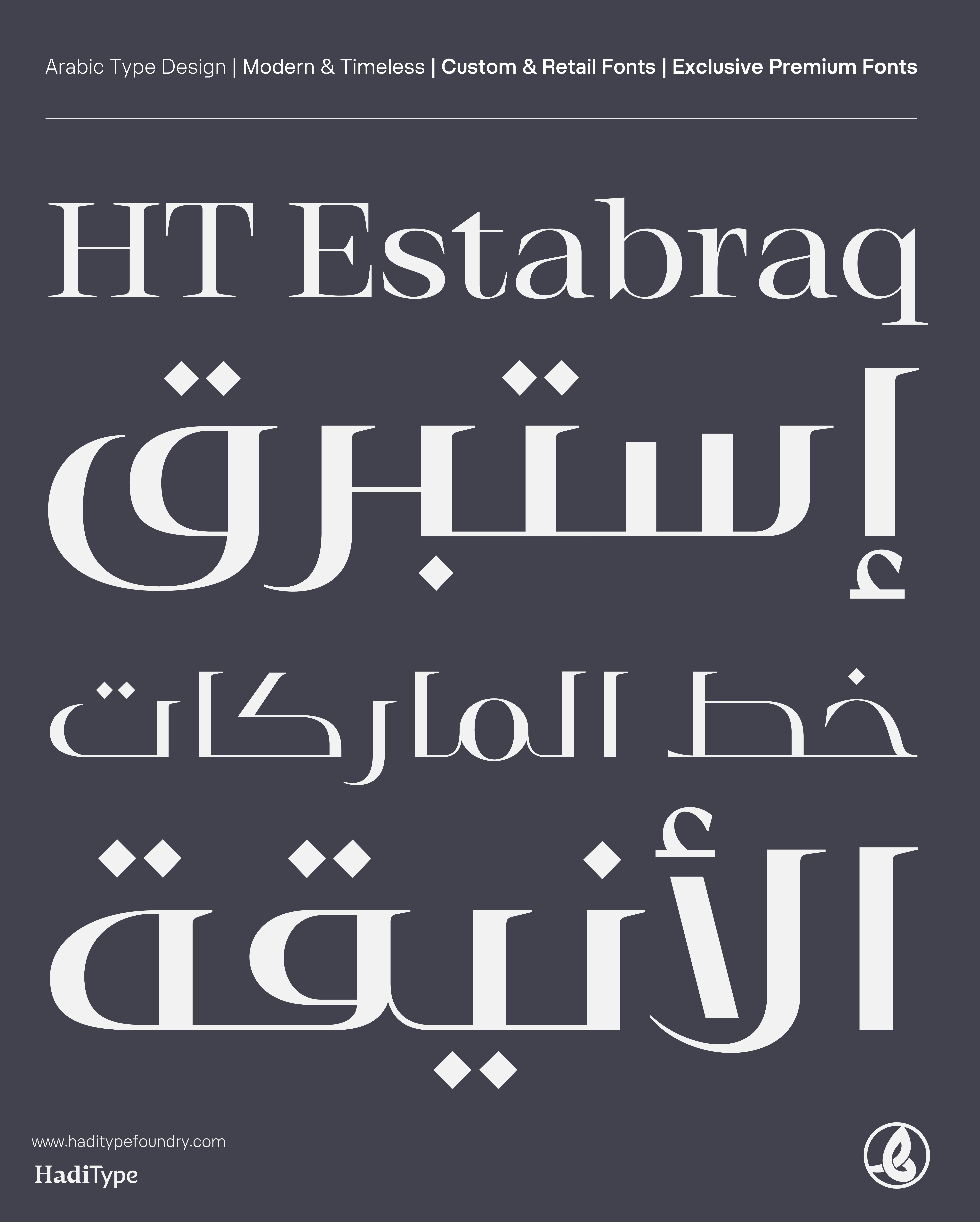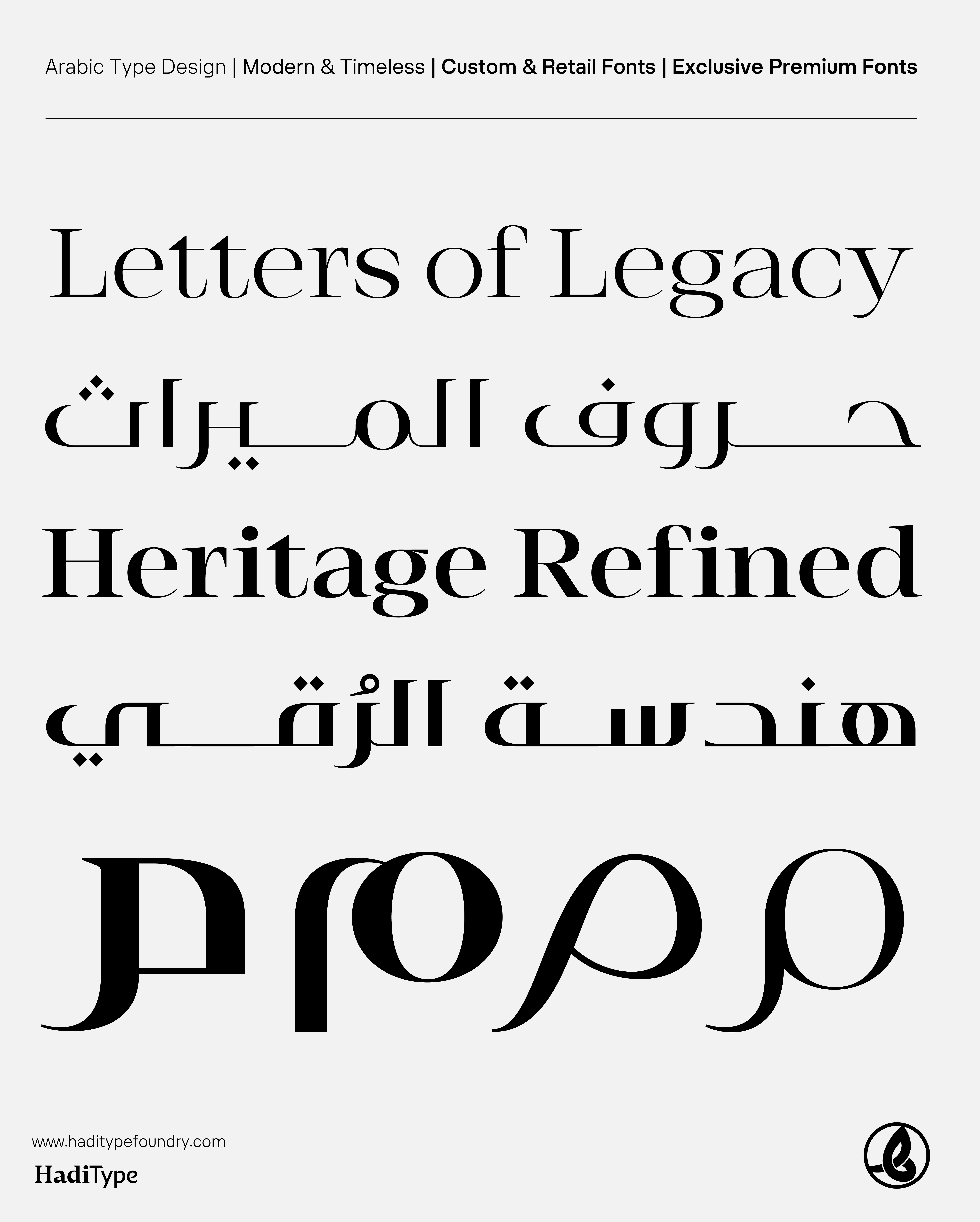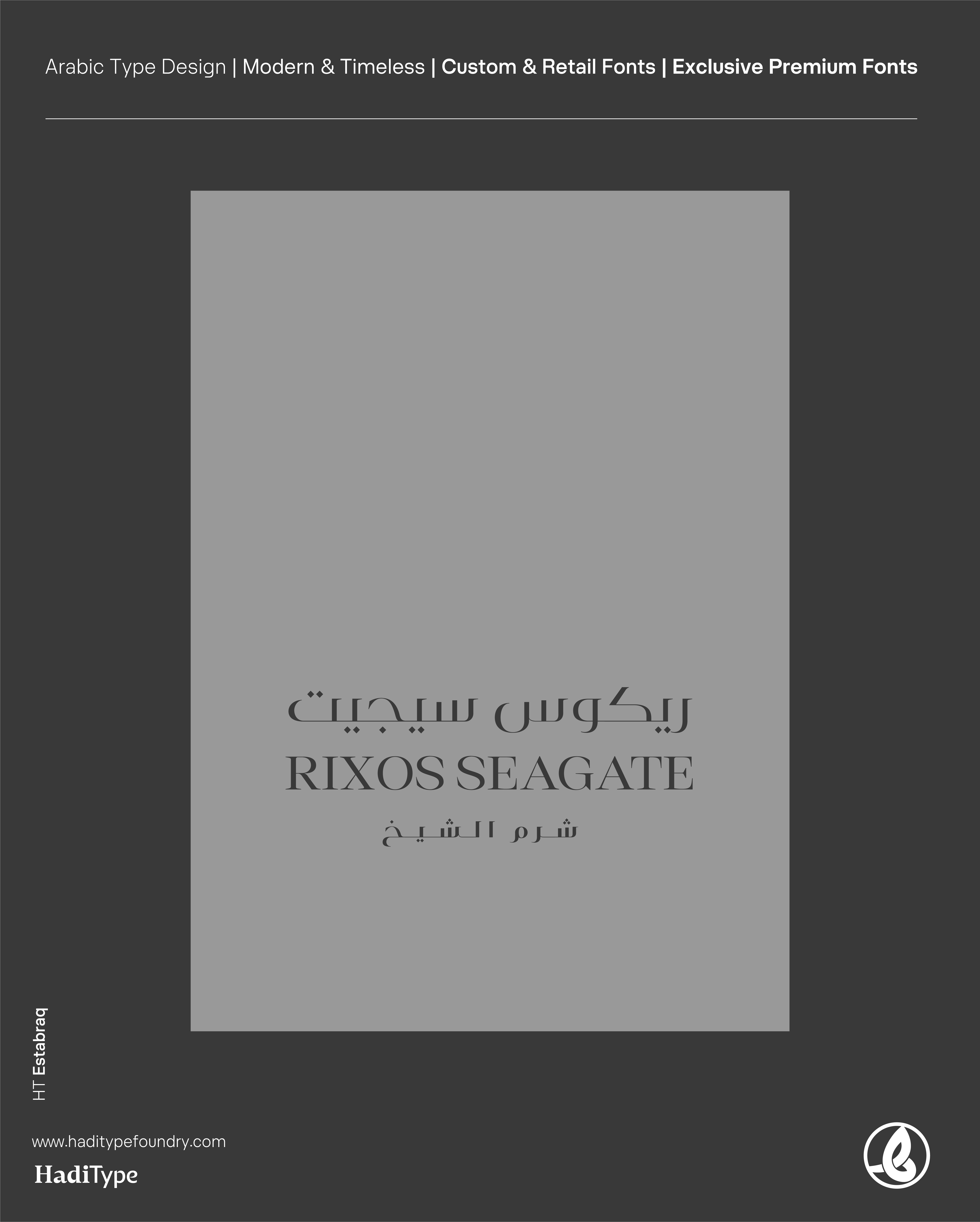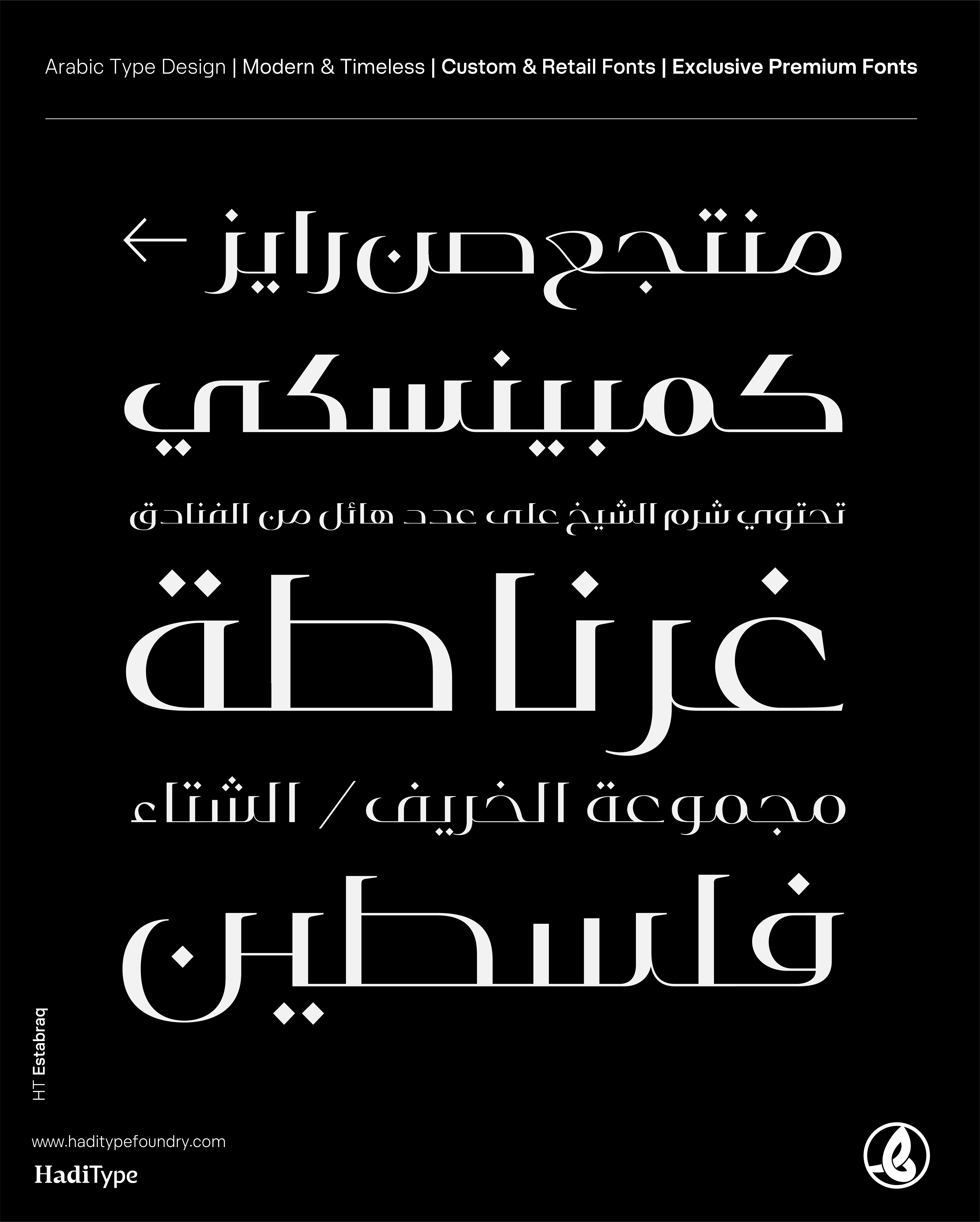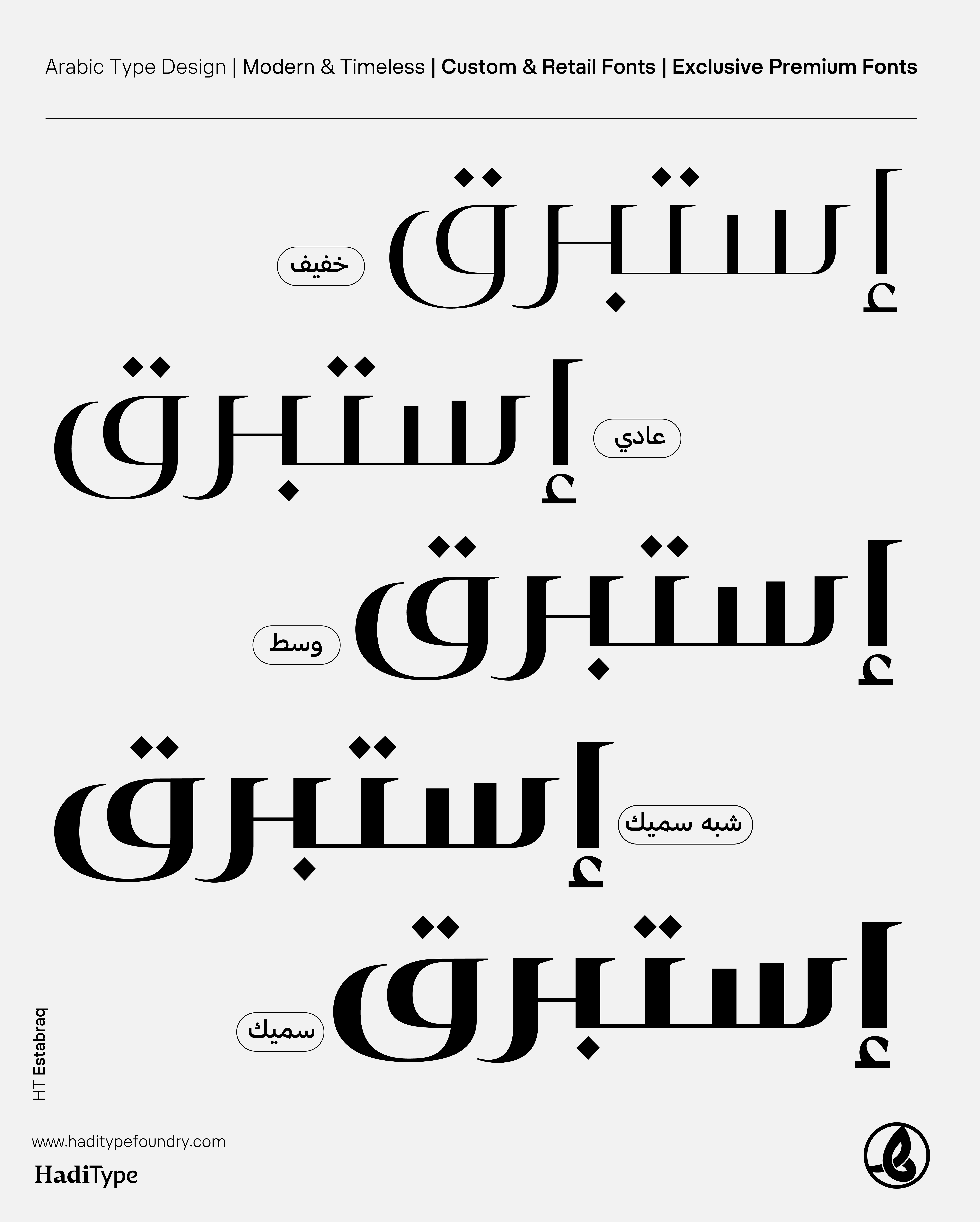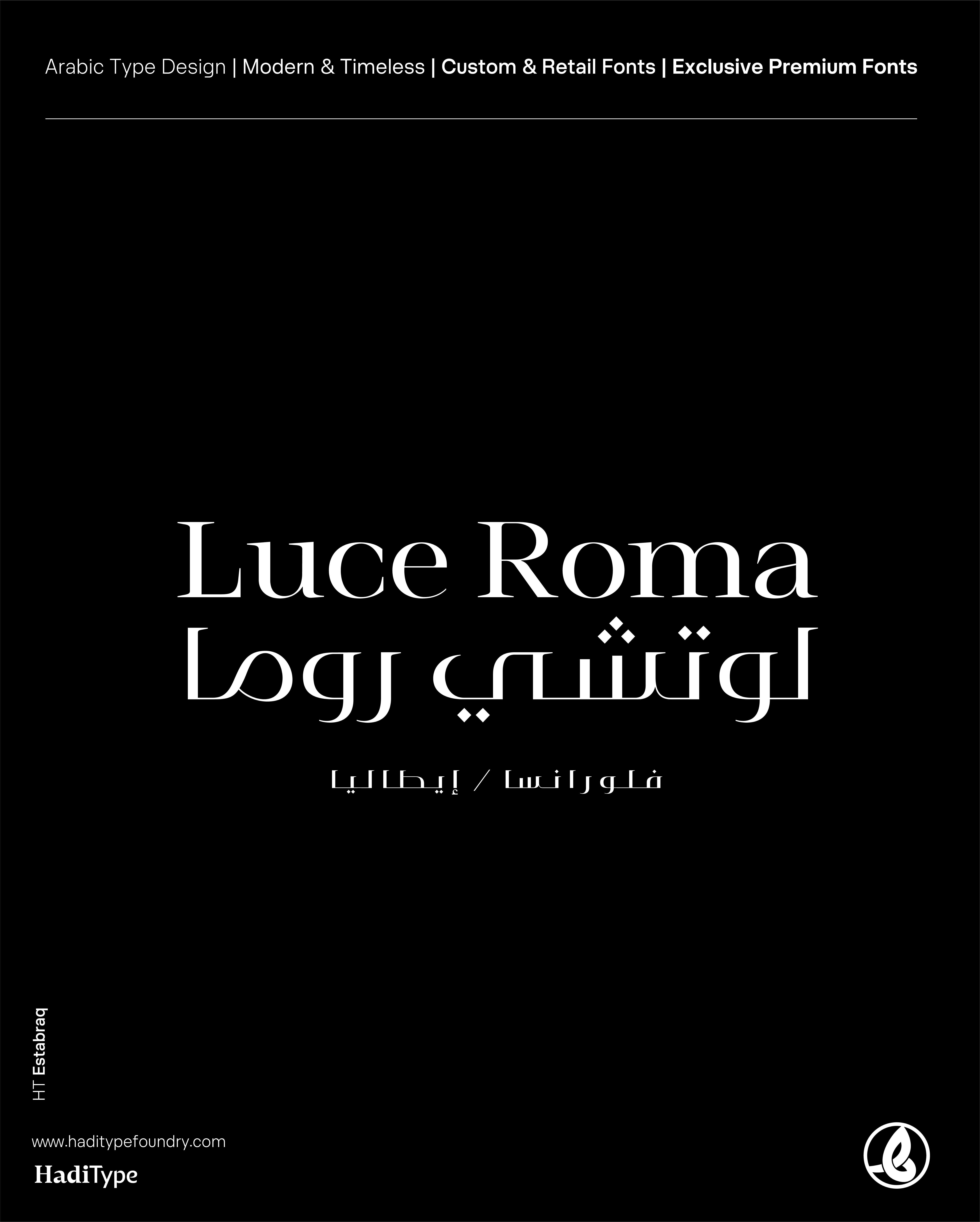
Estabraq
Inspired by the iconic aesthetics of Italian and French luxury brands, Estabraq carries the timeless geometry of Kufic calligraphy reimagined for contemporary design. With sharp details, refined proportions, and a bold yet elegant presence, Estabraq is crafted for high-end branding, editorial projects, and cultural expressions that seek sophistication and authenticity.